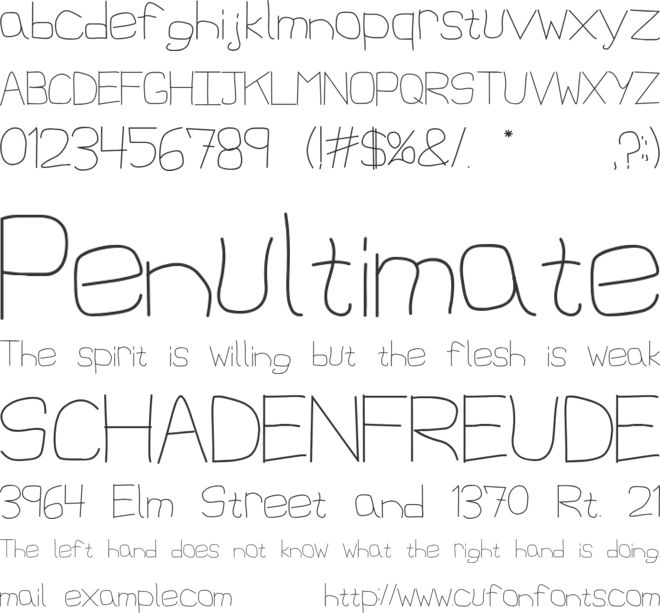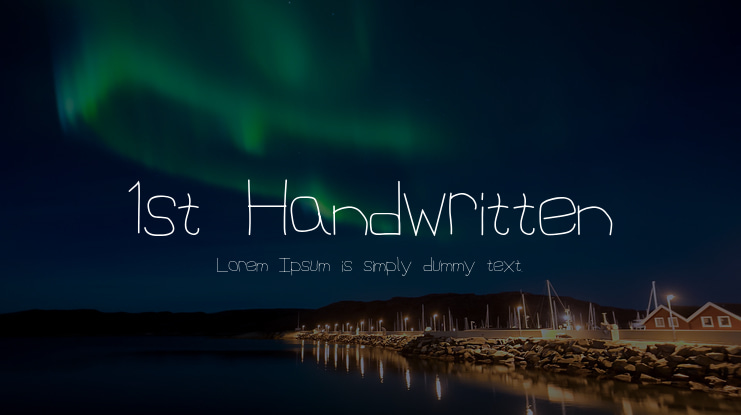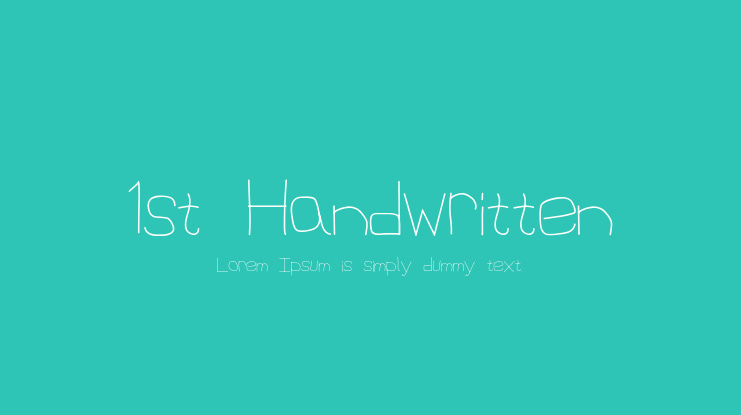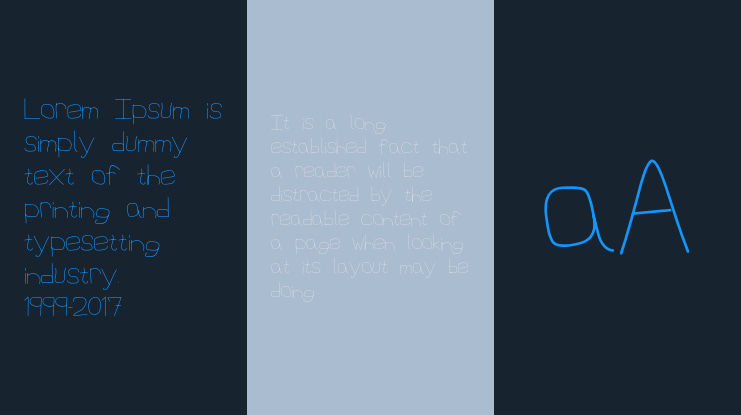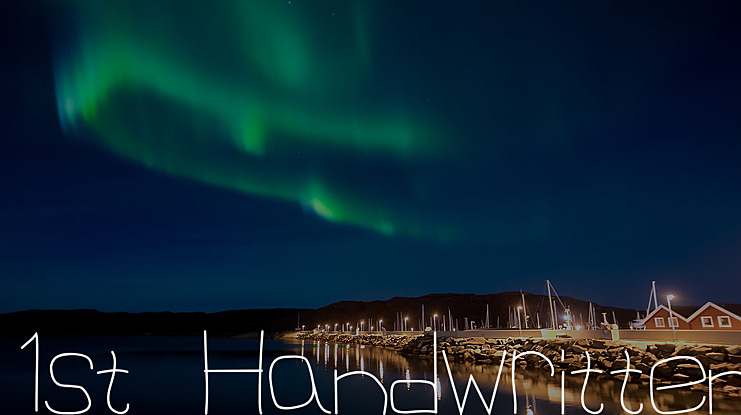
1st Handwritten Font
Yes, another handwritten font; however, this is my own. Feel free to use it for whatever project you have, may it be personal or commercial.